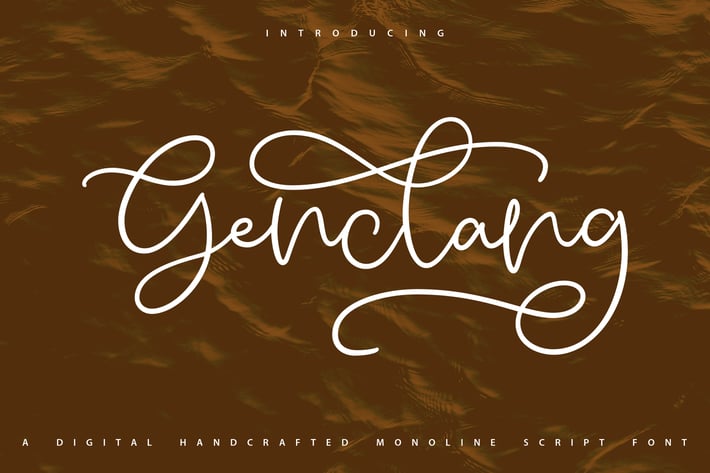
Genclang | Handcrafted Monoline Script Font
Genclang | Handcrafted Monoline Script Font with a calligraphy style, So beautiful on invitation like greeting cards, branding materials, business cards, quotes, posters, and more!